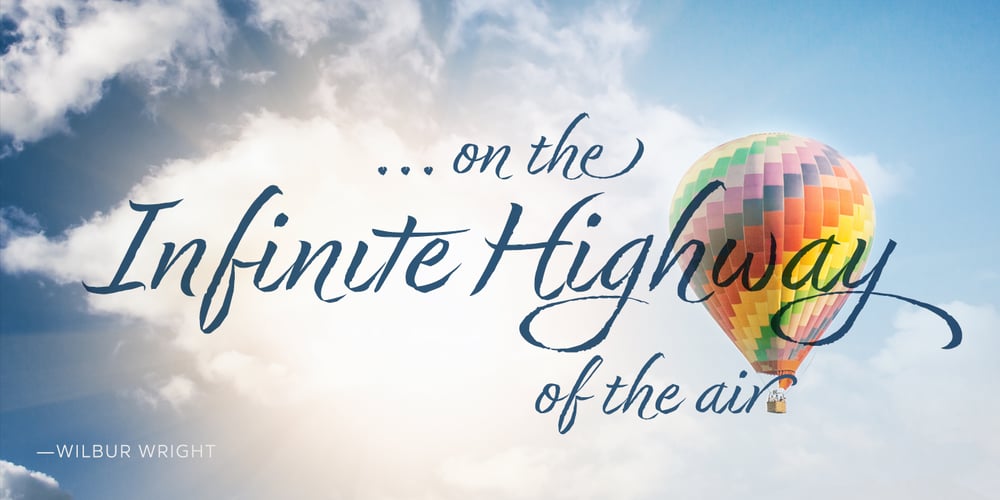
Dream Big Font Family was designed by Neil Summerour and published by Positype. Dream Big contains 3 styles and family package options. Ever sit up late at night and dream in letters—big, expressive, swash letters. Dream Big carries those grandiose thoughts and captures them as natural brush lettering on paper. Nothing manufactured here… each letter is derived from Summerour’s own hand and translated to this typeface—lofty, expressive, and joyful. Each typeface comes with an additional set of stylistic alternates (upper AND lowercase) that harmonize wonderfully when you have the Opentype Ligature feature active. Additionally, special double-letter ligatures have been produced for specific combinations in need of more expressive flair, as well as a few swashes that work with the economical strokes originally produced from the sumi brush. Rather than limit the personality of this script, various styles have been produced to complement the original Regular—a Wide and Narrow cut are included in hopes of helping you find the perfect variation needed for your composition. Dream Big is the fourth release of the Positype Relaxed Script Collection of typefaces—all focused on fluid, effortless script fonts for simple use.